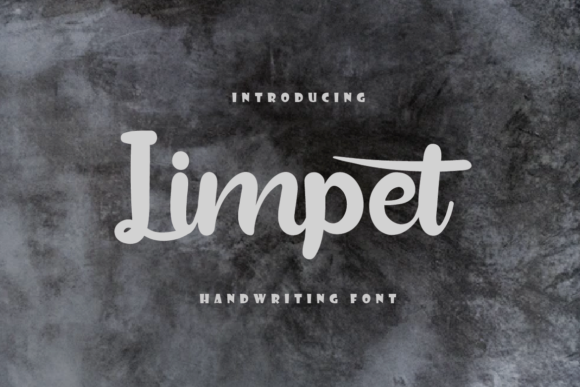
Step into a world of elegance and sophistication with Limpet Font, a captivating script font that will add a touch of charm to your creative endeavors. Born from the creative mind of Amour Design, Limpet is not just a font; it's an artistic journey waiting to be explored.
With its bold strokes and flowing curves, Limpet dances across the page, captivating your audience with its ravishing style. This versatile font is a perfect fit for a wide range of projects, from wedding invitations to social media posts, from stationary art to product labels. Its versatility knows no bounds, allowing you to express your creativity in countless ways.
Imagine the beauty of your wedding invitations adorned with Limpet's graceful letters, hinting at the elegance of your special day. Envision your social media posts radiating with personality, capturing attention with Limpet's eye-catching style. Let your imagination soar as you create stunning stationary art, adding a personal touch to your correspondence.
Limpet is more than just a font; it's an extension of your creativity, a gateway to a world of artistic possibilities. Embrace its allure, let your imagination run wild, and create designs that speak to the heart and stir the soul.